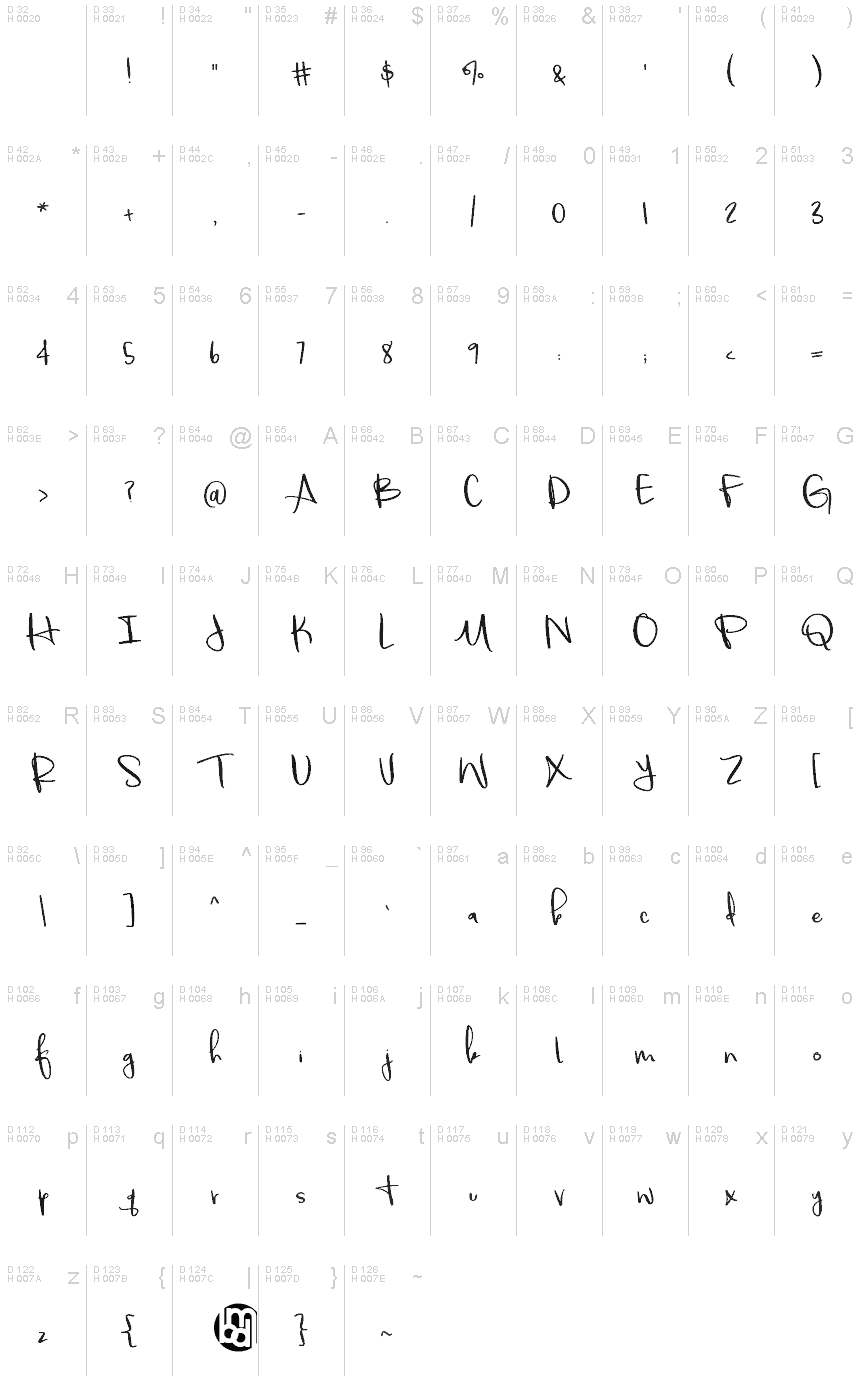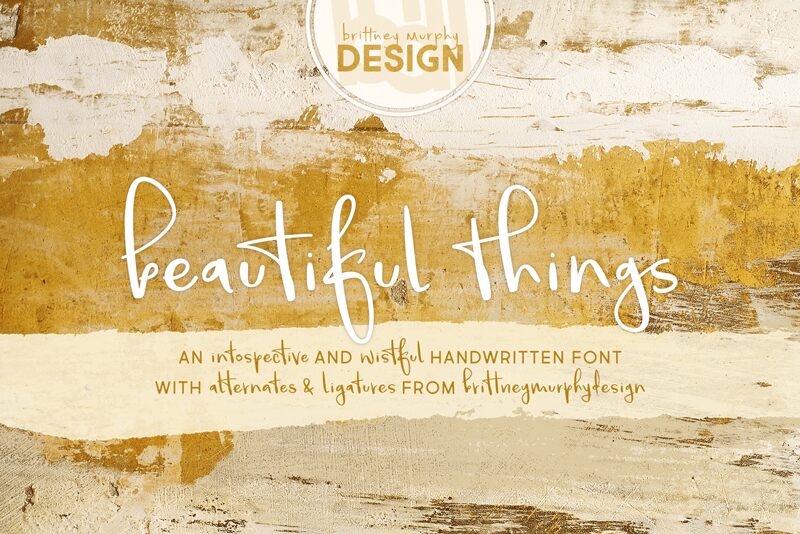
Beautiful Things
Beautiful Things is a wistful non-connecting script with sweeping ascenders and descenders and natural, flowing lines for an informal, yet elegant look.
Contains over 700 glyphs, including foreign Latin characters, alternates and ligatures.